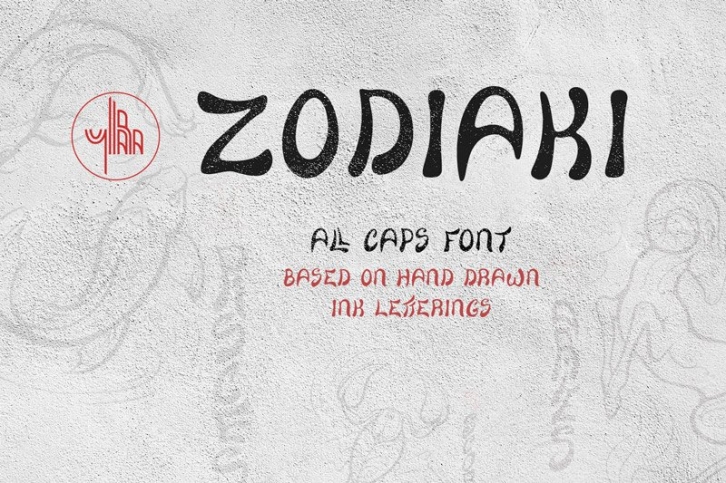
Zodiaki , based on hand drawn letterings, TTF, OTF, SVG is a great font that was designed by Yullapa. Imagine the amount of combinations you can create using this font! The archive is 21.11 MB and it was released on March 13, 2020. Zodiaki , based on hand drawn letterings, TTF, OTF, SVG looks beautiful on wedding invitations, greeting cards, logos, posters, labels, t-shirt designs, logos, business cards and is perfect for use in ink or watercolor works, fashion, magazines, packaging and food menus, children's books and more!